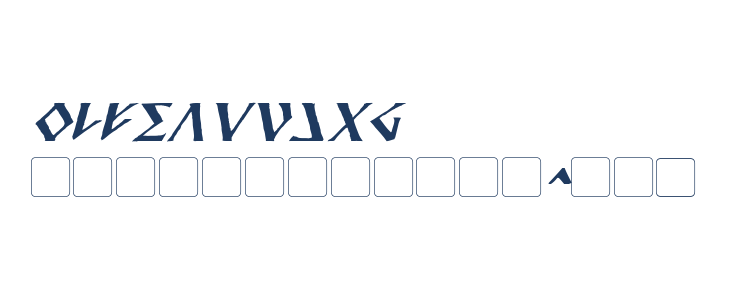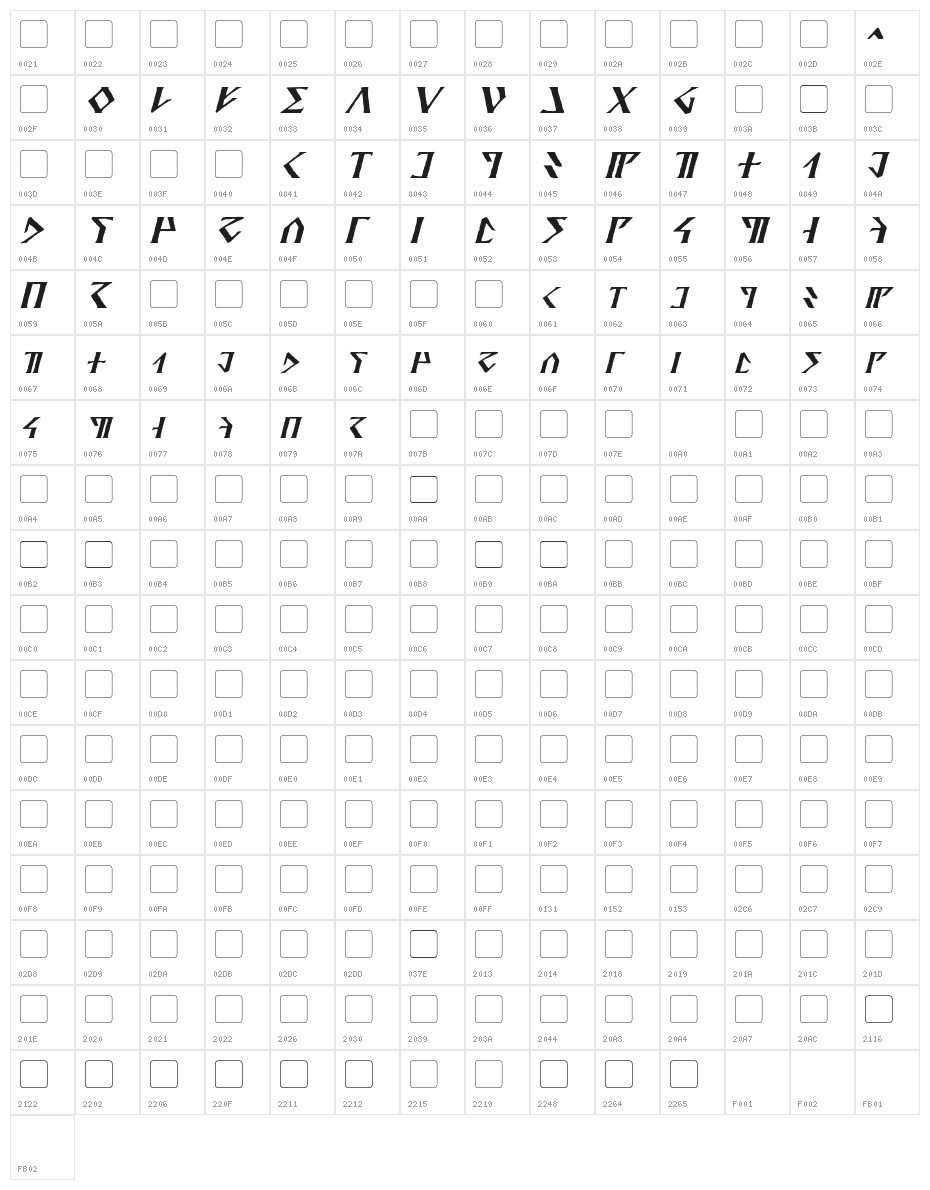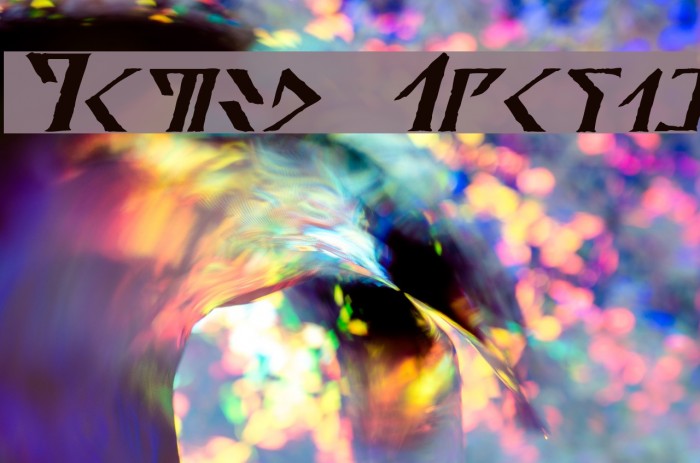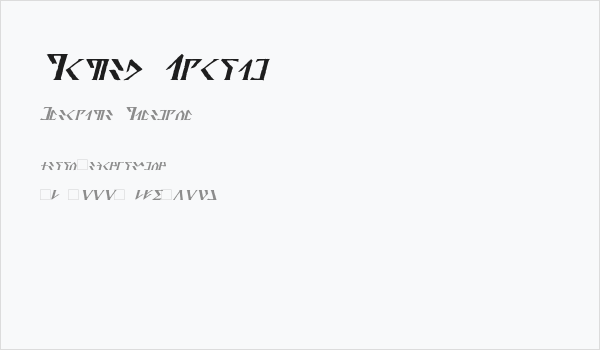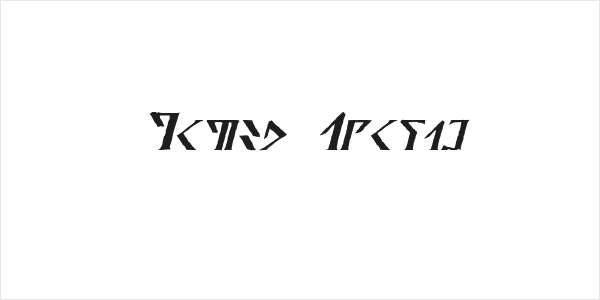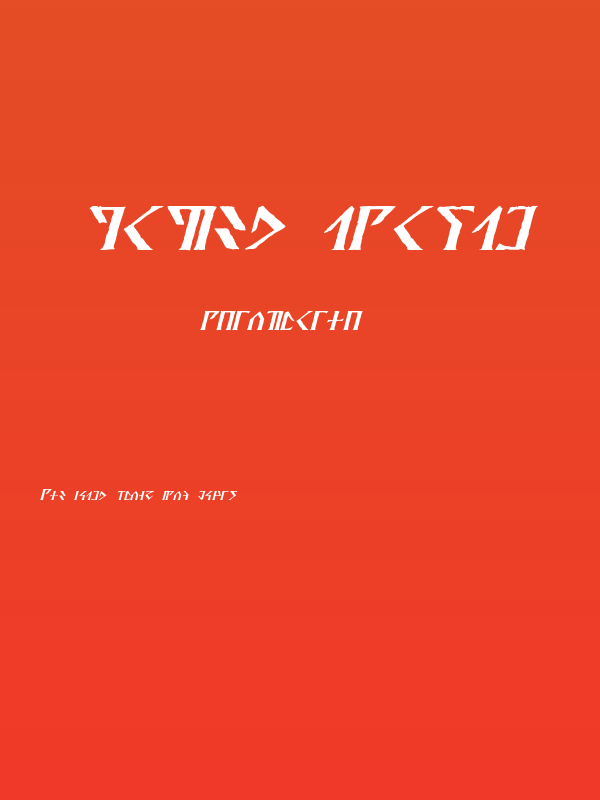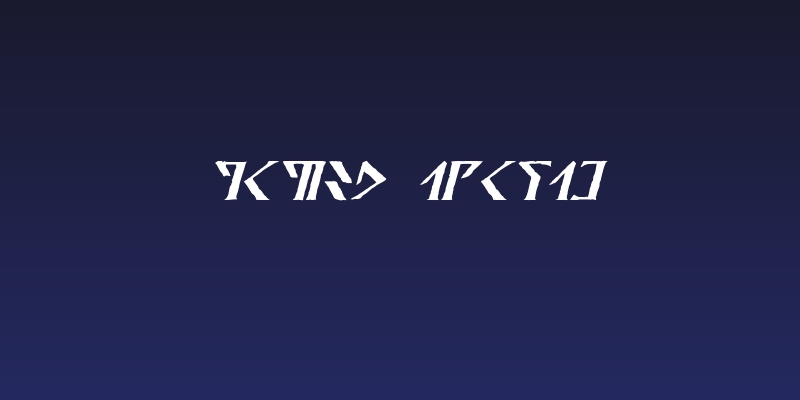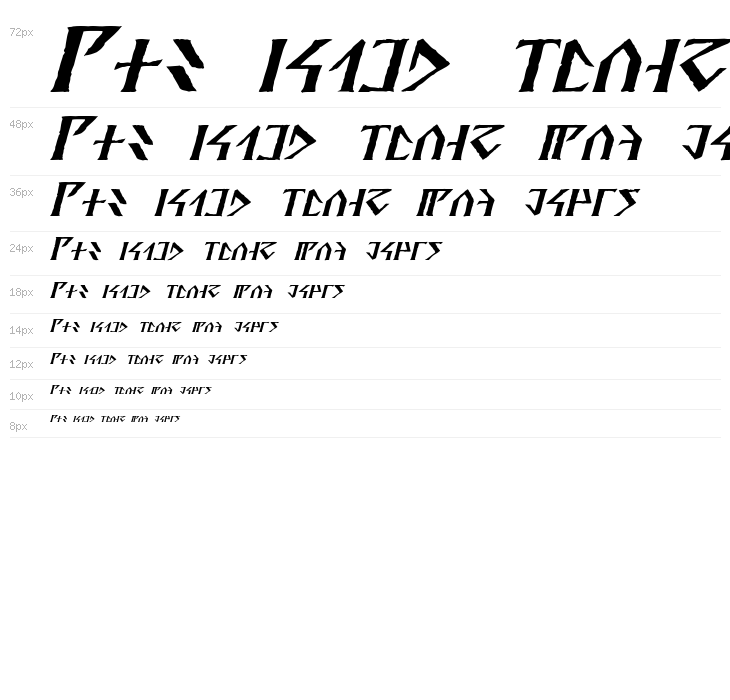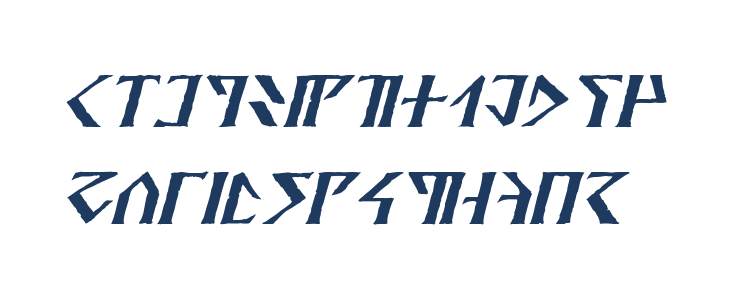
Davek Italic Font
Davek Italic Description
This font features a bold and angular design, characterized by sharp, geometric lines and a futuristic aesthetic. The characters are heavily stylized, with a distinct slant that gives them a dynamic and aggressive appearance. The strokes are thick and consistent, providing a strong visual impact. The font's unique style makes it stand out, with each letterform crafted to convey a sense of movement and energy. The overall look is modern and edgy, suitable for projects that require a bold statement.
| Proposed Projects | Ideal for sci-fi themed designs, video game titles, movie posters, and branding that requires a modern, edgy look. |